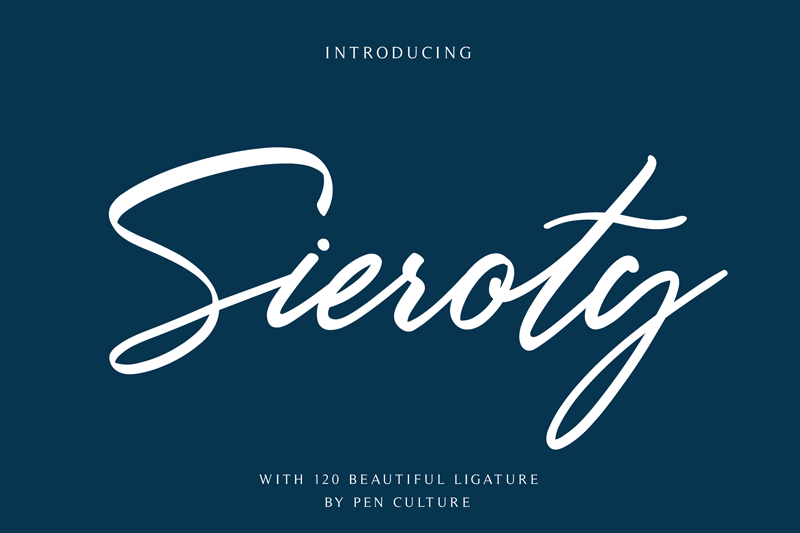
Font name: | Sieroty |
Author: | Pen Culture |
Note by Pen Culture | |
Let me show you my new font called Sieroty. Sieroty has features that makes the font look more natural and easy to use. This fonts can be used in various uses such as watermarks, signature and signature logos, business cards, brand names, and many more. Feature and what will you get: - All Caps - 120 Beautiful Ligature - Multilingual Support : - Sieroty otf/ttf/woff - Pua Encoded hope you enjoy |